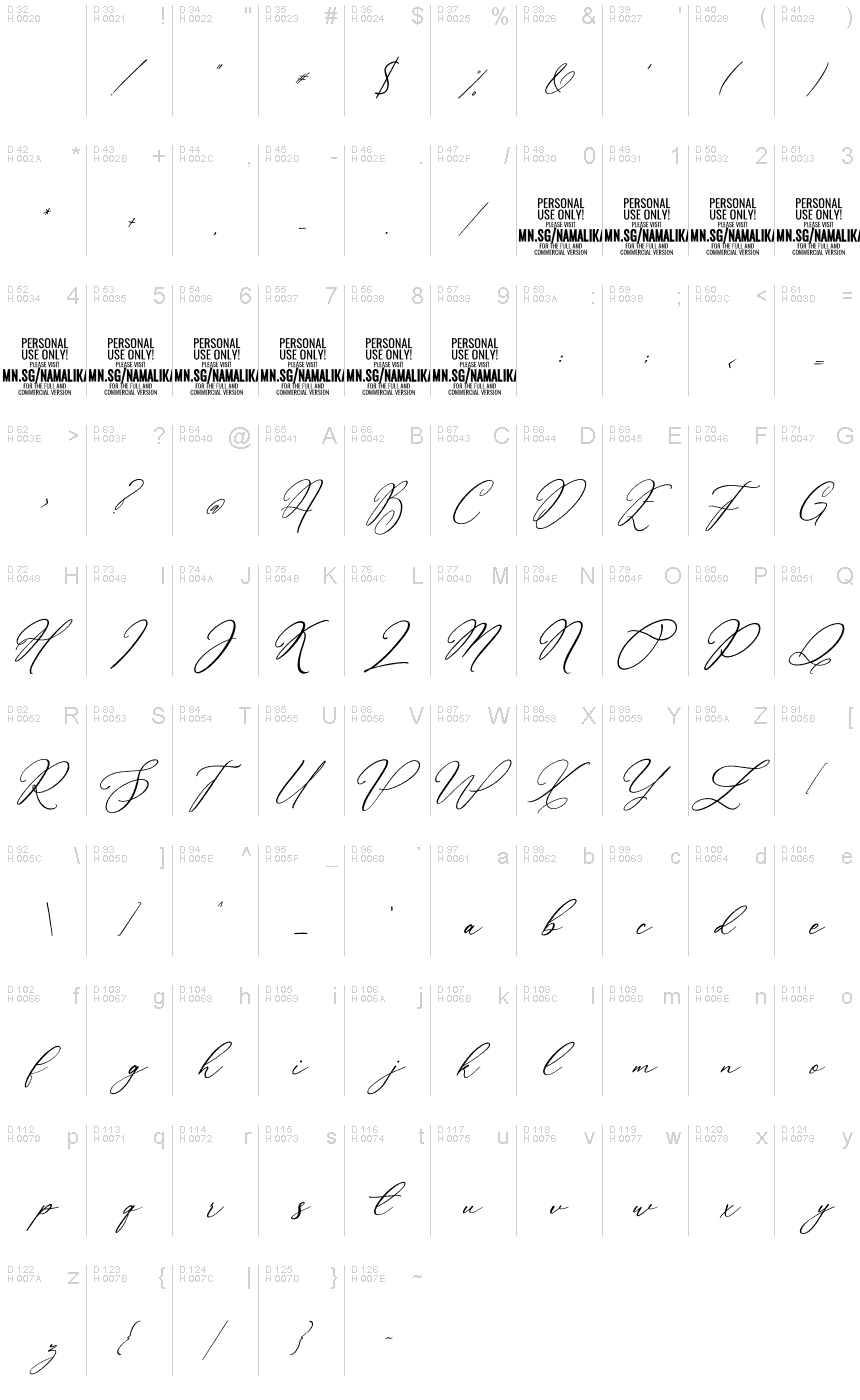
Namalika PERSONAL USE ONLY Regular
Introducing Namalika, the light and graceful handwritten font designed by Mans Greback. Perfect for creating eye-catching logos, posters, scrapbooks, and more. Namalika adds a beautiful touch to any project!
Use underscore _ after any word to make a swash.
Example: Namalika_